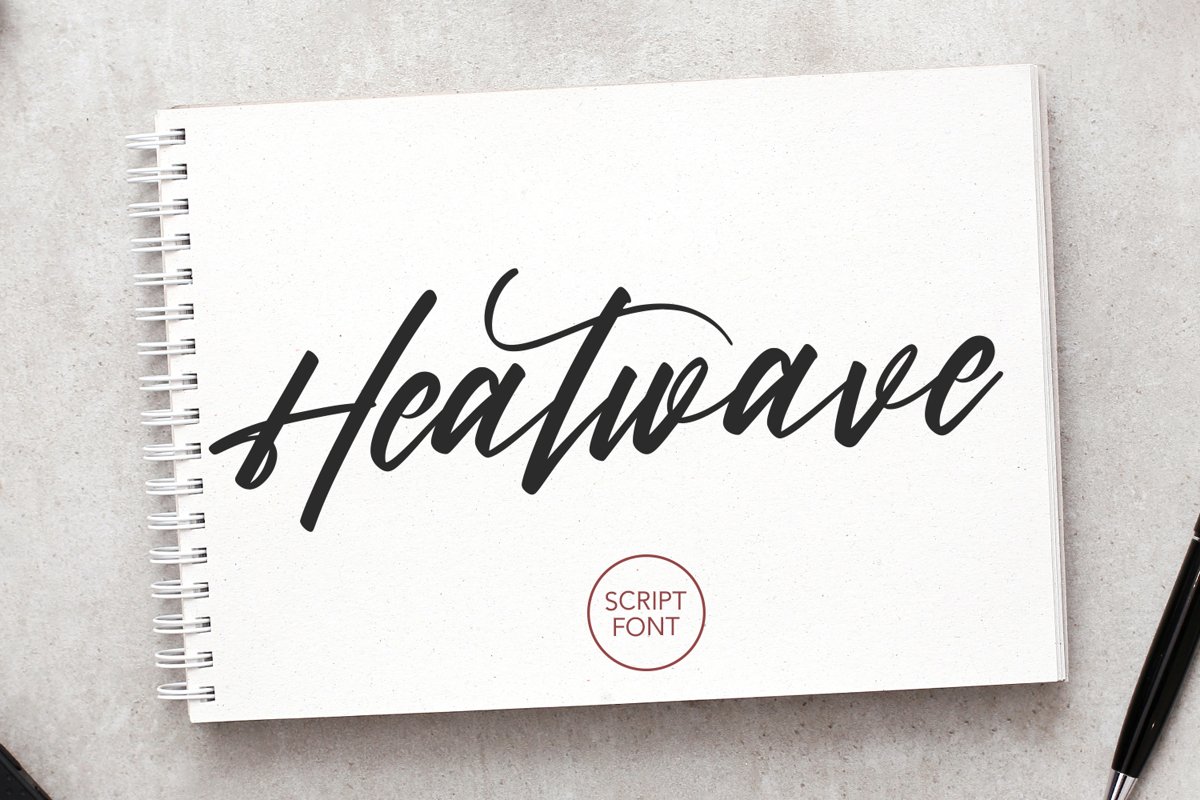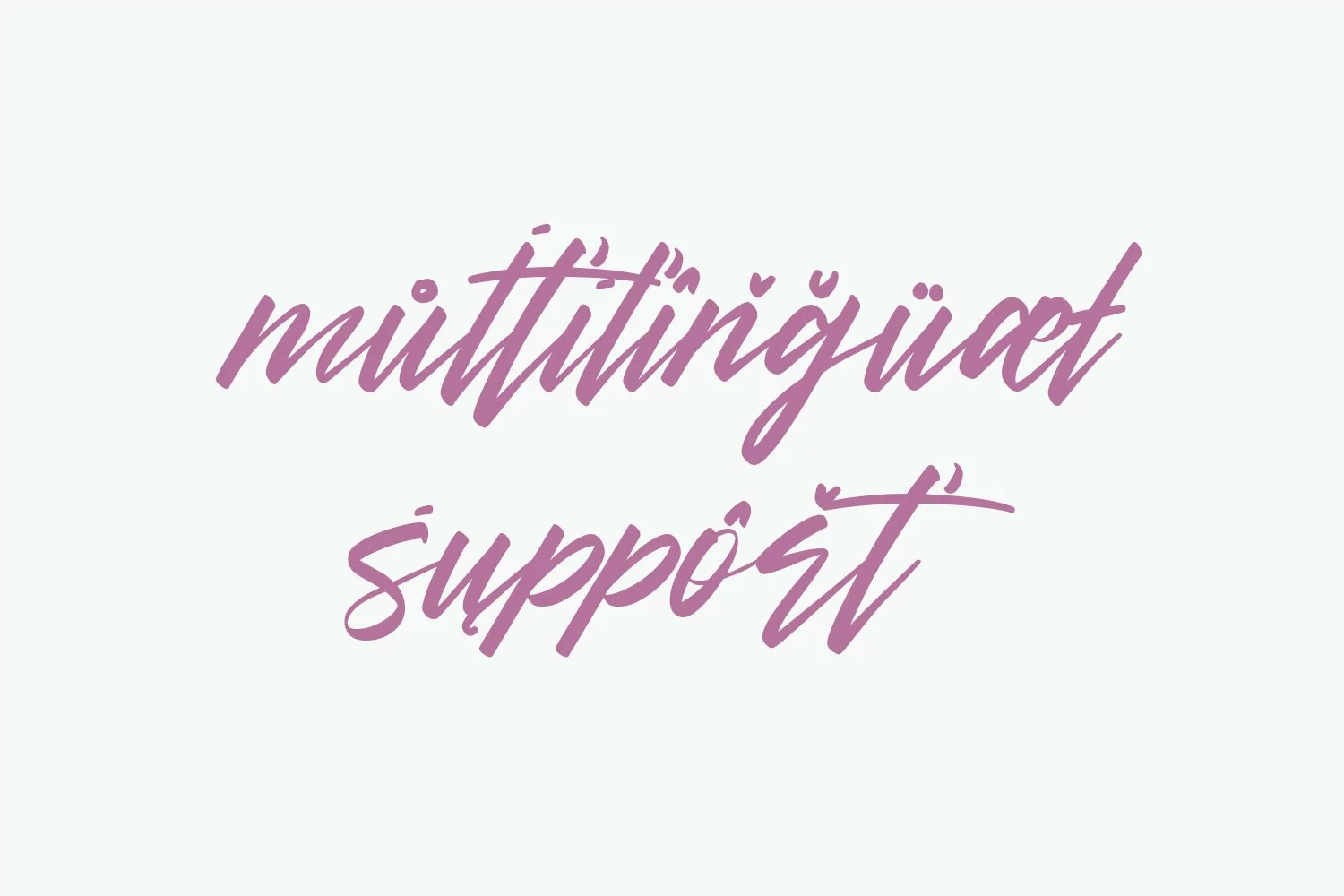
Heatwave Script Brush Handmade Modern Font
Give your designs an authentic handcrafted feel. "Heatwave Script Brush Handmade Modern Font" is perfectly suited to stationery, logos and much more.